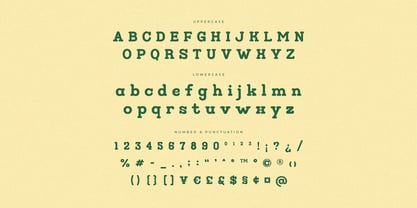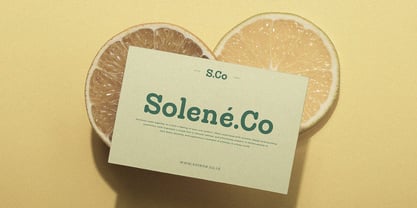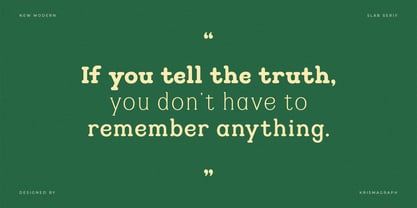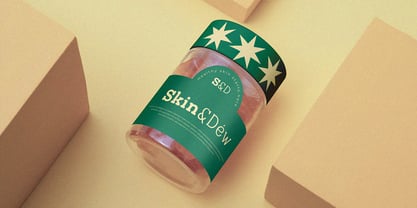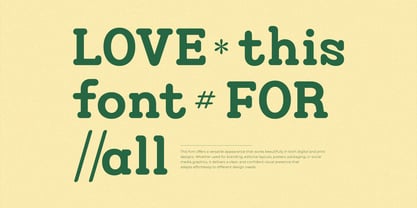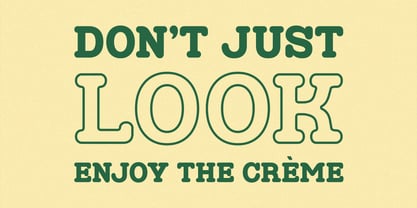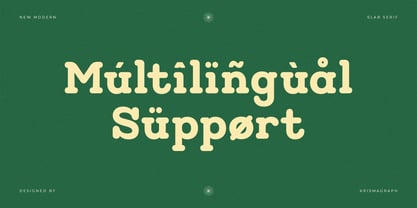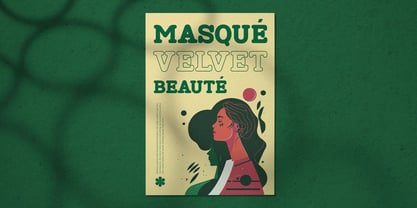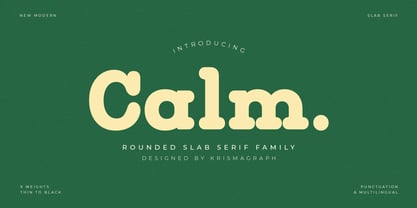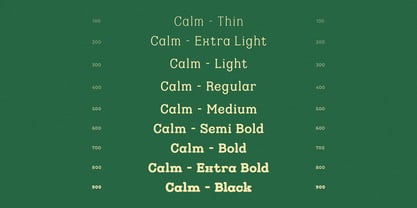
Calm
by Krismagraph
The Calm Font Family was designed by Ratna Krismawati and published by Krismagraph. Calm contains 9 styles and family package options. More about this family
Calm is an expressive rounded slab serif family that radiates warmth, confidence, and approachability in equal measure. With a generous 9-weight range — from Thin to Black — this typeface is a complete typographic toolkit for designers who need range without compromise.
The chunky, pillowy slab serifs and generously rounded terminals give Calm an instantly likable character — the kind that makes brands feel trustworthy and products feel inviting. It excels in food branding, children's content, eco-conscious packaging, health and wellness identity, independent retail, and editorial illustration.
Despite its casual warmth, Calm has the structural discipline of a professional workhorse. Its weight range and punctuation completeness make it as comfortable setting a headline as it is at smaller display sizes.
9 weights (Thin to Black) Full punctuation & multilingual support Ideal for: food branding, wellness,✦✦✦ eco packaging, children's design, retail identity
Every good design project deserves a font with this much personality and this much range.
• 9 Fonts ( Thin to Black )
• Numbers, fractions
• Punctuation and symbols
• Alternates
• Ligatures
• Multilingual support